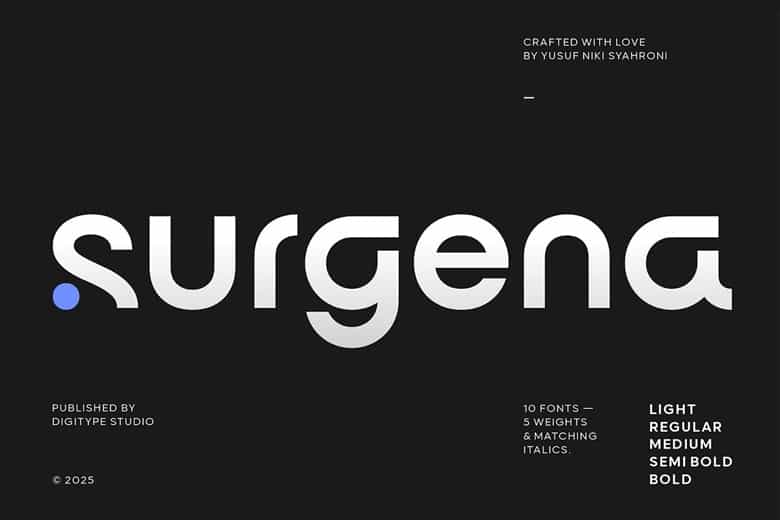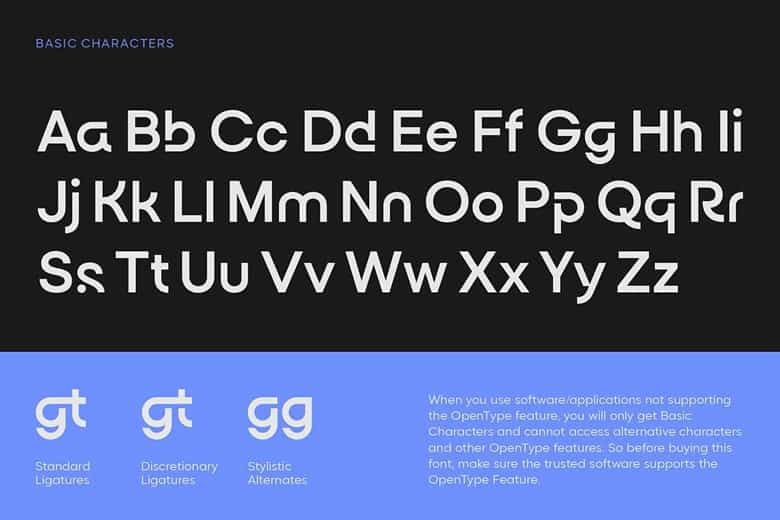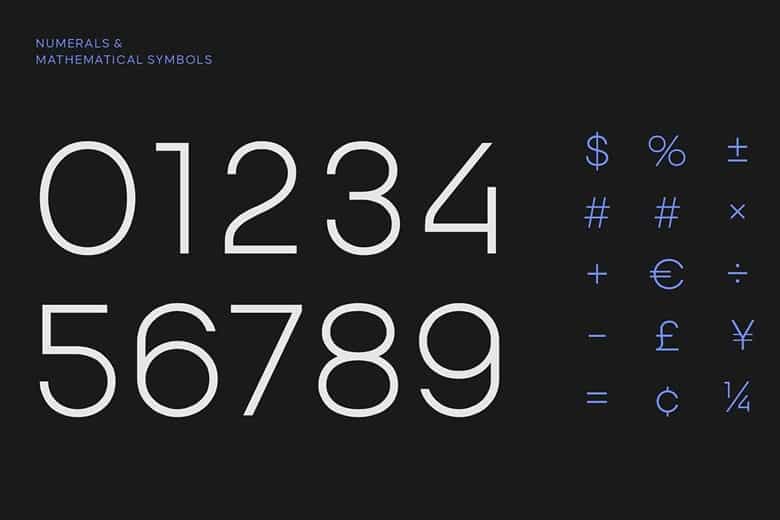
Surgena is a rounded sans serif font of a relatively recent release, characterized by quite simple forms and strict geometric shapes. Responsible for the improvements of the details and the clear hierarchy that they have implemented, it gives a professional, modern, and active perspective that makes it ideal on branding, editorial and digital projects.